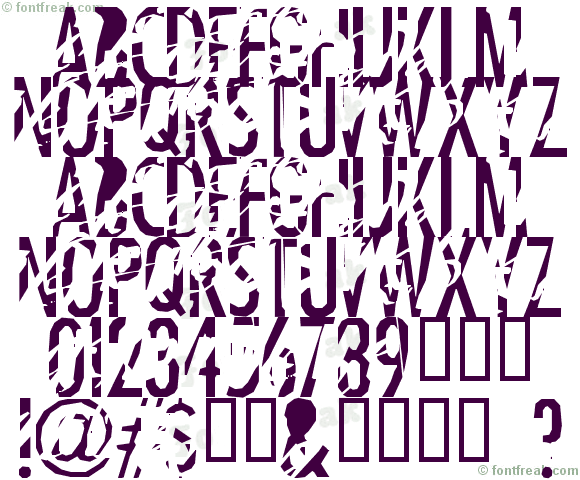
Tanline
About Tanline
The Tanline font by Sound Of Print is a striking display typeface that captures attention with its unique visual style. This font features bold, angular letterforms with a distinct personality, making it ideal for projects that demand a modern yet playful touch. The stroke weight varies significantly, creating a dynamic contrast that enhances its visual appeal. The spacing between characters is thoughtfully designed, allowing for clarity and legibility, even at larger sizes. Decorative elements, such as sharp edges and unconventional shapes, contribute to its distinctive character, making it a standout choice for various design applications.
Tanline is particularly suited for a range of creative endeavors. It shines in wedding invitations where a contemporary flair is desired, as well as in movie posters that aim to capture the viewer's attention immediately. Restaurant menus can benefit from its boldness, creating an inviting atmosphere that complements the dining experience. Additionally, it serves well in branding projects for startups looking to establish a memorable identity. The font’s unique aesthetic appeals to graphic designers, small business owners, and content creators who are in search of a versatile typeface that can elevate their work.
What sets the Tanline font apart is not just its eye-catching design, but also its versatility across different mediums. Whether used in print or digital formats, it consistently delivers an engaging visual experience. Its freeware license means that anyone can access this exceptional typeface, making it a valuable resource for designers on a budget. For those looking to enhance their projects with a contemporary edge, the Tanline font free download is an opportunity not to be missed. Embrace the creativity and let your designs stand out with Tanline.